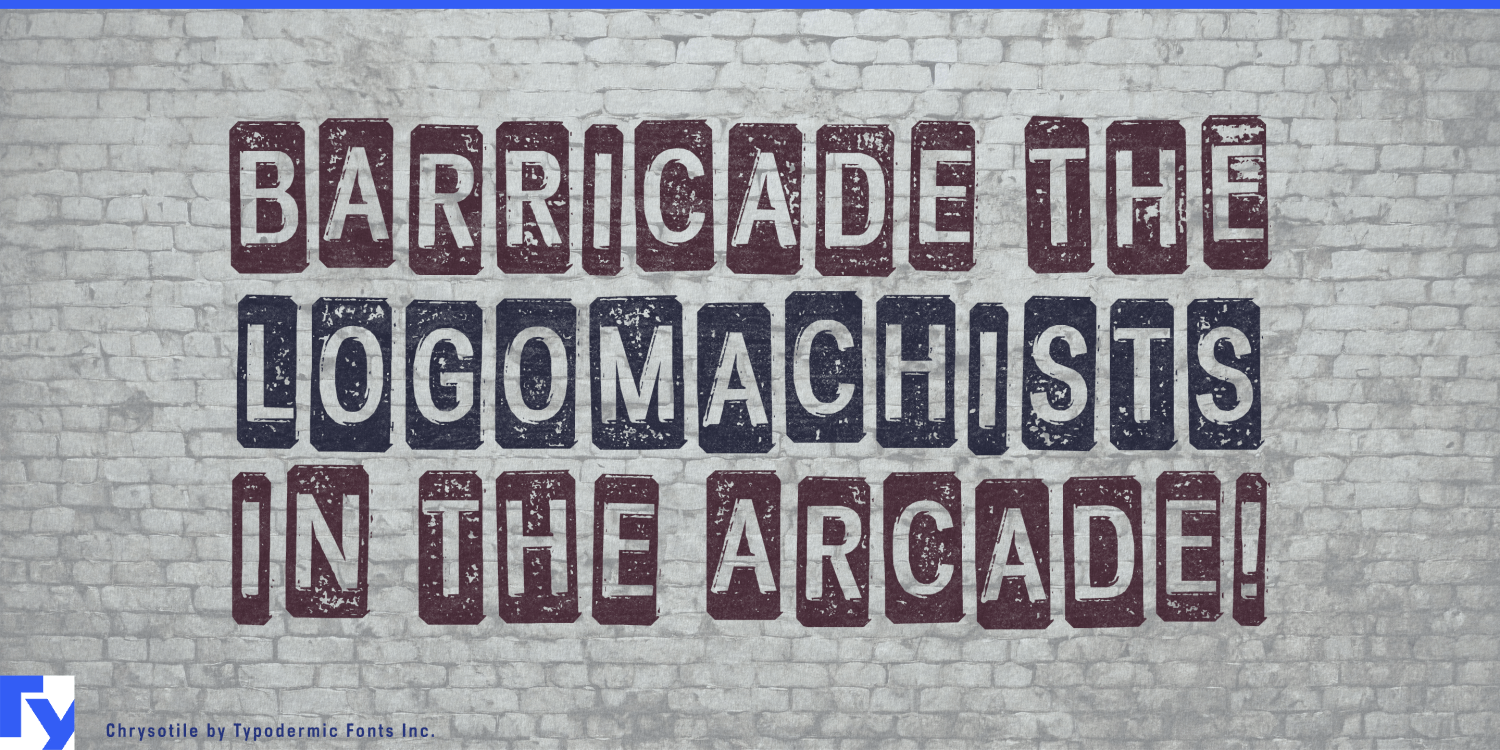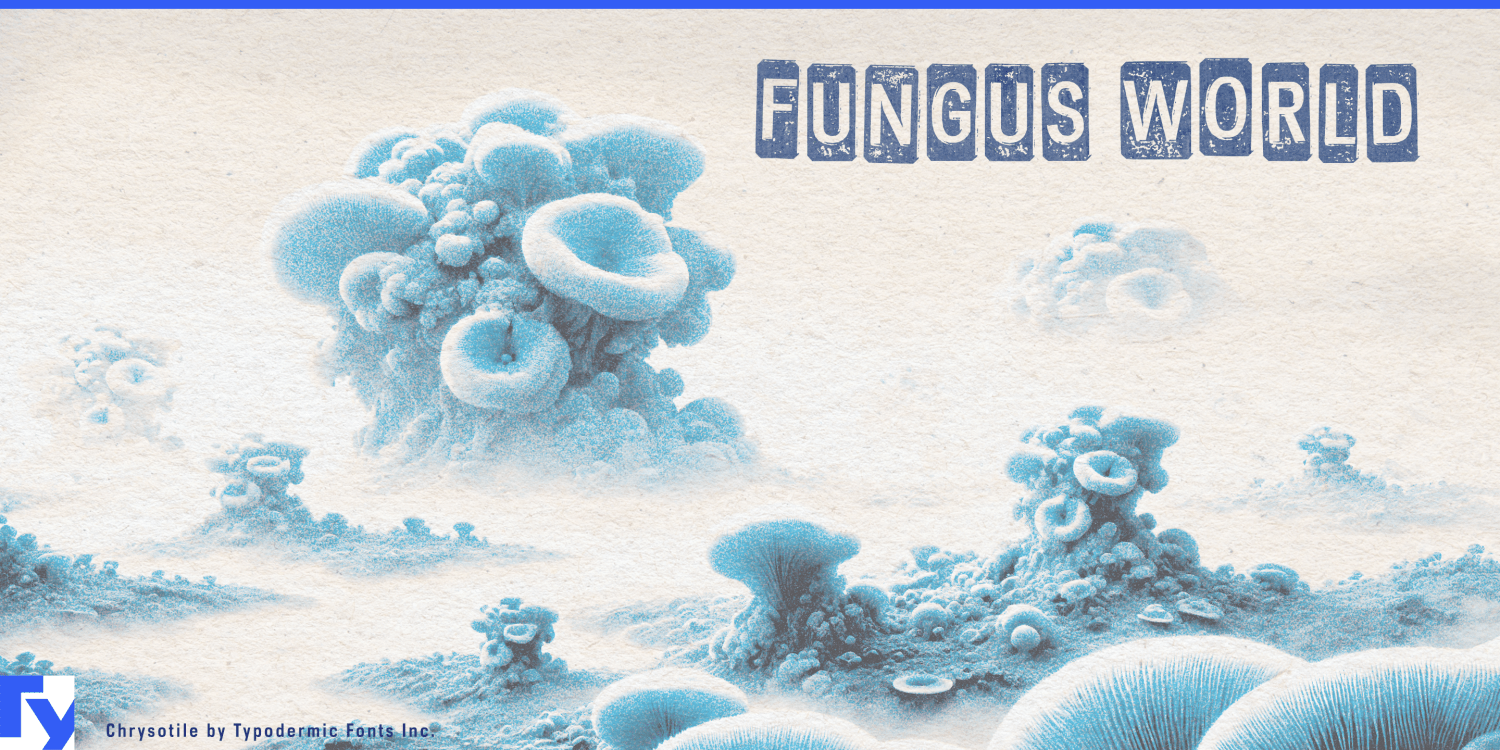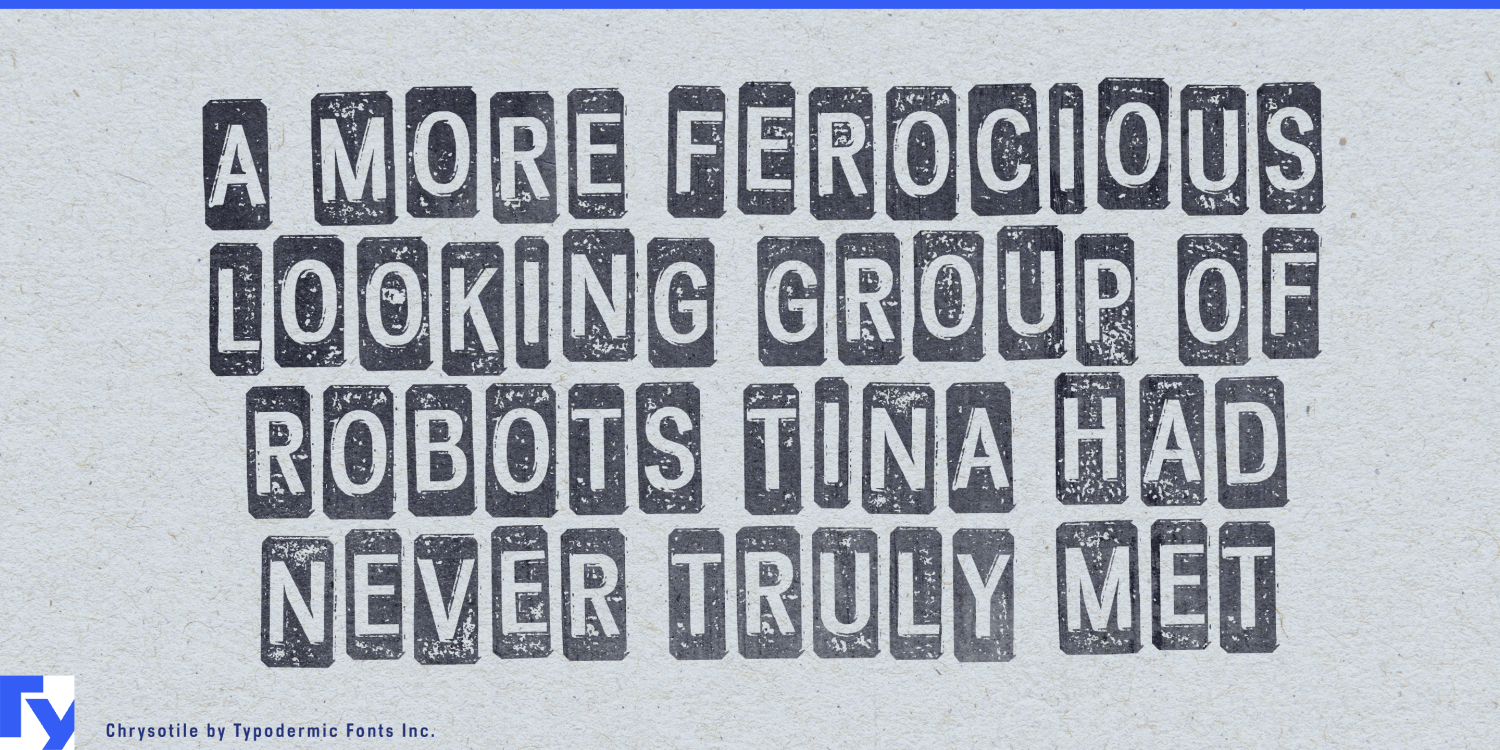
About Chrysotile
Forge your message with Chrysotile, a typeface that hammers convention into submission. Born from the crucible of industrial design, this font melds rusty metal tiles with spartan block lettering to create a visual language as raw and uncompromising as…